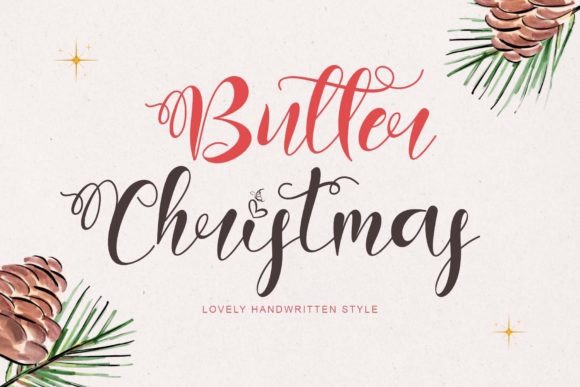
Behold Butter Christmas Font, an exquisite script font with an enchanting charm that will captivate your heart. Its alluring curves and delicate swashes evoke a sense of warmth and nostalgia, reminiscent of the cozy comfort of a winter wonderland. Immerse yourself in its romantic aura, reminiscent of a snow-kissed forest on a starlit night.
Unleash your creativity and let your projects blossom with an enchanting allure when you incorporate Butter Christmas Font into your designs. Its versatility is limitless, whether you're crafting heartfelt Christmas greetings, whimsical Valentine's cards, or adding a touch of charm to your back-to-school projects. This font is the secret ingredient to making every occasion feel extra special.
Picture this: your Christmas cards adorned with the elegant strokes of Butter Christmas Font, conveying the warmth of the season to your loved ones. Or perhaps you're creating an enchanting invitation for a winter wedding, where the font's delicate swirls add a hint of magic to the proceedings. The possibilities are as endless as the snowflakes that fall on a crisp winter morning.
So, dive into the enchanting world of Butter Christmas Font and let your creativity soar. Adorn your projects with a touch of festive cheer, heartfelt romance, or back-to-school magic. Let your designs shine with a unique personality that reflects the beauty of the season. Embrace the spirit of giving and watch your ideas transform into works of art.